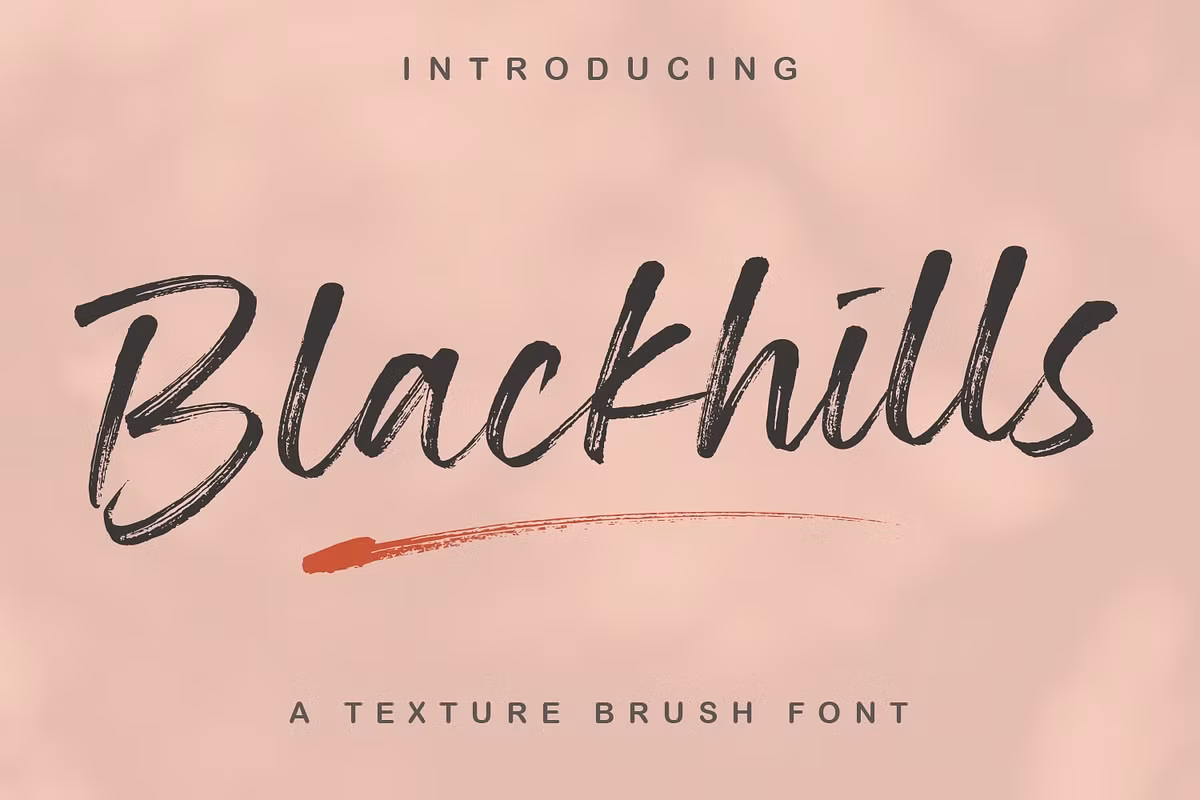
Blackhills - Brush Font Free Download is a bold and rugged typeface with the raw energy of hand-painted brush strokes. Please note: you must purchase this font for commercial use, but you can test it through a free download. With its textured edges and dynamic flow, Blackhills is perfect for posters, logos, apparel design, music artwork, and any creative project that needs an expressive, rebellious vibe.
This font captures the spirit of adventure and artistic freedom—making it ideal for anything from streetwear branding to bold quote graphics. Whether you're designing for digital platforms or print, Blackhills - Brush Font Free Download brings a gritty, handcrafted edge to your typography. It’s fully compatible with Adobe Illustrator, Photoshop, and Canva, so you can easily incorporate it into your workflow. Download it now for personal use and give your designs the bold personality they deserve with Blackhills.